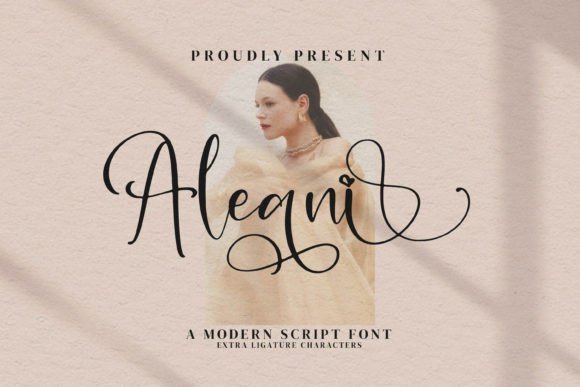
Unlock the Elegance of Aleani Font
There’s nothing quite like the thrill of brainstorming new ideas for a project, surrounded by scribbled notes and half-baked concepts. You’re searching for the perfect font to bring your vision to life, and suddenly, it hits you – the perfect script font with a touch of elegance.
Enter Aleani Font, a modern script typeface that exudes refinement and sophistication. Whether you’re designing a logo, branding materials, or creating eye-catching graphics, Aleani Font is the perfect choice. Its versatility makes it suitable for a wide range of applications, from mugs and t-shirts to books and photography.
For designers, Aleani Font is a valuable asset that can elevate any project to the next level. Its unique blend of modernity and elegance sets it apart from other fonts, making it a standout choice for those who want to make a lasting impression.
Aleani Font Key Features
- Character Set: Aleani Font includes a wide range of characters, including Latin, Cyrillic, and Greek alphabets, as well as punctuation and symbols.
- Unique Characteristics: Aleani Font features a unique, hand-drawn design with subtle irregularities and imperfections, giving it a personal and human touch.
Aleani Font Review
Overall, I found the Aleani font to be quite charming and visually appealing. It’s a script font that exudes elegance and sophistication, making it perfect for various design projects.
- ✨ Elegant and refined feel, great for high-end designs
- ✨ Wide range of languages supported, making it a versatile option
- ✨ Highly customizable, allowing for precise control over styling
- ✨ Beautifully crafted letterforms, with attention to detail and texture
- ⚠️ Limited to script font use, may not be suitable for body text or titles with a lot of code
- ⚠️ Can be quite heavy, which may make it difficult to read in certain contexts
- ⚠️ Not as legible at smaller font sizes, which can impact readability
While the Aleani font has its limitations, it’s still a great choice for designers looking to add a touch of elegance and sophistication to their projects. With its wide range of customization options and support for multiple languages, it’s a versatile font that’s sure to please.
Some tips for getting the most out of Aleani Font include:
- Use Aleani Font for titles and headings to add a touch of elegance to your design.
- Combine Aleani Font with other fonts to create a visually appealing design.